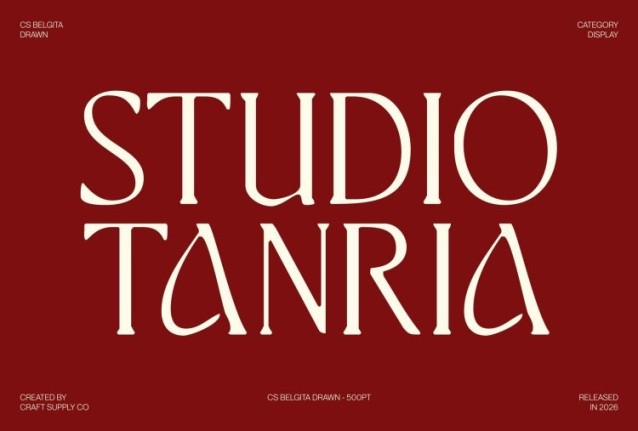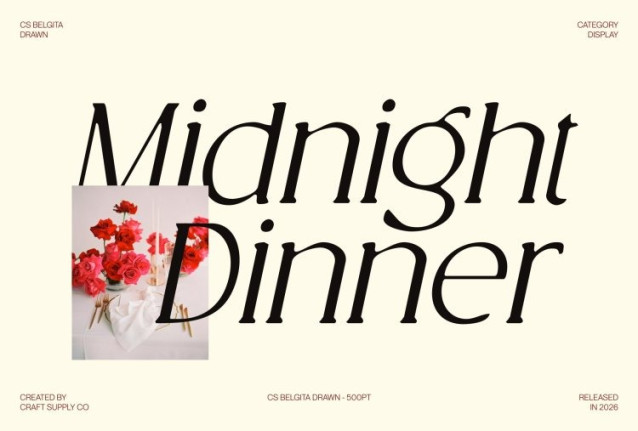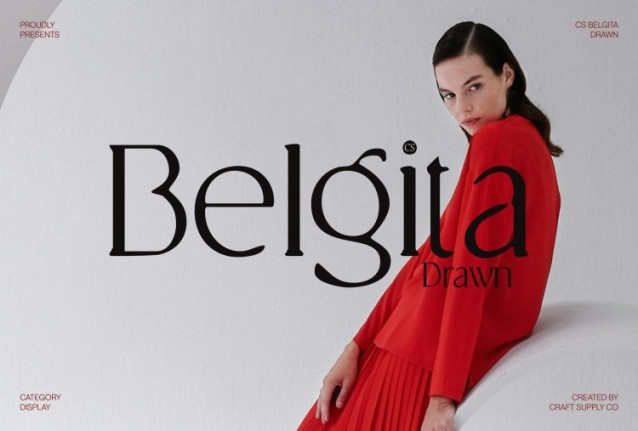
CS Belgita Drawn Font
CS Belgita Drawn Font This is an elegant serif font crafted with clean, slender letterforms and enhanced by a subtle drawn finish. Its refined construction communicates confidence and sophistication, while the handcrafted texture softens the precision, adding warmth and personality.
Timeless Design with Soft Drawn Character
Rooted in classic serif principles, this font introduces modern sophistication through slim strokes and restrained detailing, now enriched with a gentle drawn effect. The slight texture gives each letter a unique character, preventing the font from feeling too rigid or mechanical. This balance results in a timeless aesthetic that feels fresh, elegant, and naturally expressive.
Refined Structure with Handcrafted Elegance
The font’s clean rhythm and slender proportions create an elegant flow across layouts, while the drawn texture adds depth and an artistic touch. Its subtle contrast maintains clarity and legibility, making it ideal for refined compositions that seek understated luxury with a human feel. The result is a serif that looks poised, soft, and thoughtfully crafted.
Perfect for Fashion, Editorial, and Premium Branding
Designed for fashion branding, editorials, posters, and luxury visuals, this font excels in headlines, titles, and stylish typographic layouts. Its combination of modern refinement and artistic texture makes it perfect for magazine spreads, fashion campaigns, boutique branding, and creative projects that value elegance with a distinctive handcrafted charm.